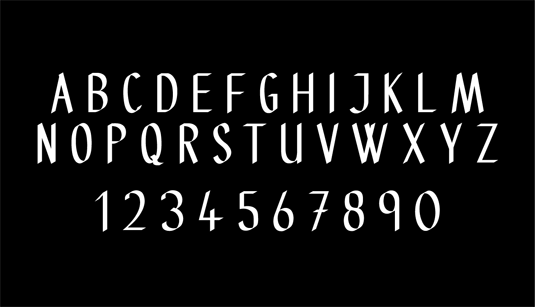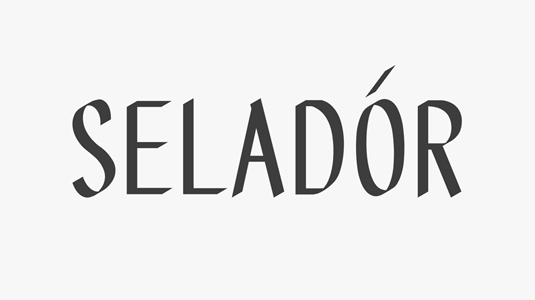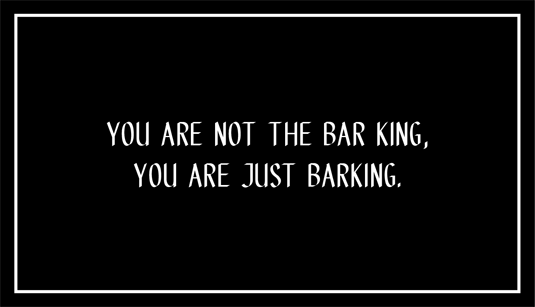
Font of the day: Selador
Each day of the week we showcase our favourite fonts – today it's Selador by Maximilian Huber.
Selador by Maximilian Huber
Today's showcased typeface is Selador, created by Maximilian Huber. A modern and refined interpretation of early calligraphy letterforms, Selador is most suited to alternative or punk style graphic design pieces.